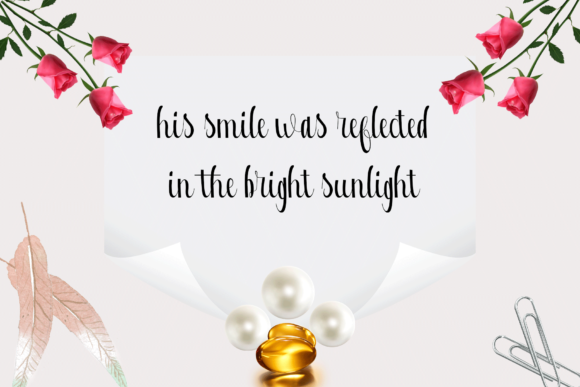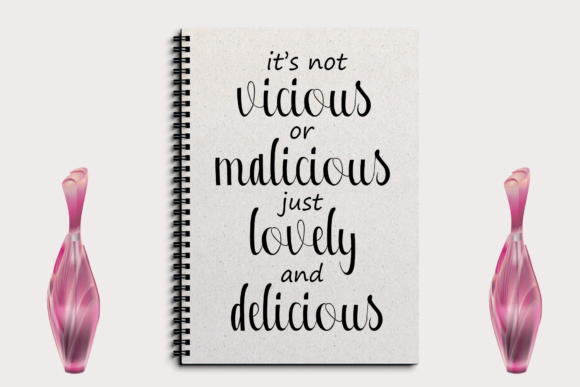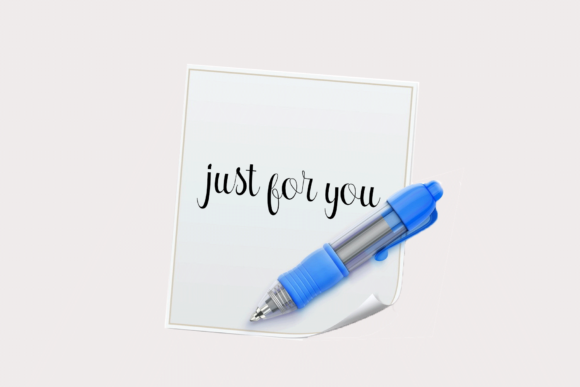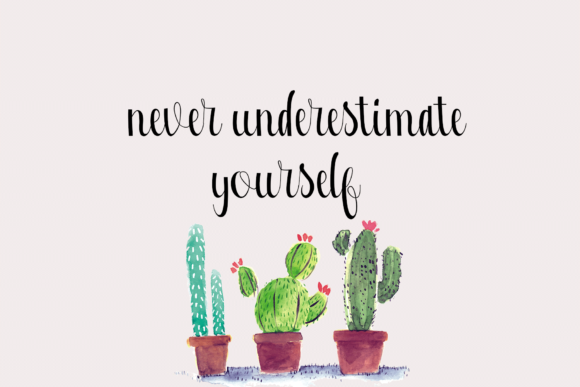
Cabbage Font: A Modern Calligraphy Font for Creative Projects
Cabbage is a modern calligraphy font created by RT Creative 86, designed to add a touch of elegance and sophistication to various creative projects. This beautiful font is perfect for designers, crafters, and anyone looking for a unique and stylish way to express themselves. In this article, we’ll explore the features, benefits, and uses of the Cabbage Font, and why it’s a must-have for any creative enthusiast.
What is Cabbage Font?
Cabbage Font is a modern calligraphy font that boasts a fresh and contemporary look. Created by RT Creative 86, this font is designed to be versatile and adaptable, making it suitable for a wide range of applications, from digital designs to print materials. With its flowing lines and intricate details, Cabbage Font is sure to add a touch of sophistication and glamour to any project.
Key Features of Cabbage Font
- Modern Calligraphy Style: Cabbage Font features a modern calligraphy style that is both elegant and trendy.
- Unique Letterforms: Each letterform in Cabbage Font is carefully crafted to ensure a unique and distinctive look.
- High-Quality Design: The font is designed with high-quality lines and intricate details, making it perfect for large and small designs.
- Multi-Language Support: Cabbage Font supports multiple languages, making it a great choice for international projects.
- Easily Customizable: The font is easily customizable, allowing designers to adjust the size, color, and style to suit their needs.
Benefits of Using Cabbage Font
Cabbage Font offers several benefits to designers and crafters, including:
- Enhance Your Designs: Cabbage Font can add a touch of elegance and sophistication to your designs, making them stand out from the crowd.
- Time-Saving: With Cabbage Font, you can save time and effort in creating custom lettering and calligraphy for your projects.
- Consistency: Using a single font throughout your project ensures consistency and cohesiveness, making your design look more professional.
- Creative Freedom: Cabbage Font gives you the creative freedom to experiment with different styles and designs, allowing you to express yourself in a unique and innovative way.
Uses of Cabbage Font
Cabbage Font is a versatile font that can be used in a variety of creative projects, including:
- Digital Designs: Use Cabbage Font in digital designs, such as social media graphics, blog posts, and website headers.
- Print Materials: Add Cabbage Font to print materials, such as brochures, flyers, and business cards.
- Crafting Projects: Use Cabbage Font in crafting projects, such as handmade cards, scrapbooking, and DIY decorations.
- Branding and Identity: Cabbage Font can be used in branding and identity projects, such as logos, letterheads, and packaging.
Tips for Using Cabbage Font
Here are some tips for using Cabbage Font effectively:
- Experiment with Sizes and Colors: Try out different sizes and colors to find the perfect combination for your project.
- Pair with Other Fonts: Pair Cabbage Font with other fonts to create a unique and interesting contrast.
- Use in Combination with Images: Use Cabbage Font in combination with images to add context and meaning to your design.
- Make it Your Own: Don’t be afraid to experiment and make Cabbage Font your own by adding your personal touch.
Cabbage Font is a modern calligraphy font that offers a unique and stylish way to express yourself in your creative projects. With its elegant and sophisticated look, this font is perfect for designers, crafters, and anyone looking to add a touch of glamour to their designs. Whether you’re working on digital designs, print materials, or crafting projects, Cabbage Font is a versatile and adaptable font that is sure to meet your needs.